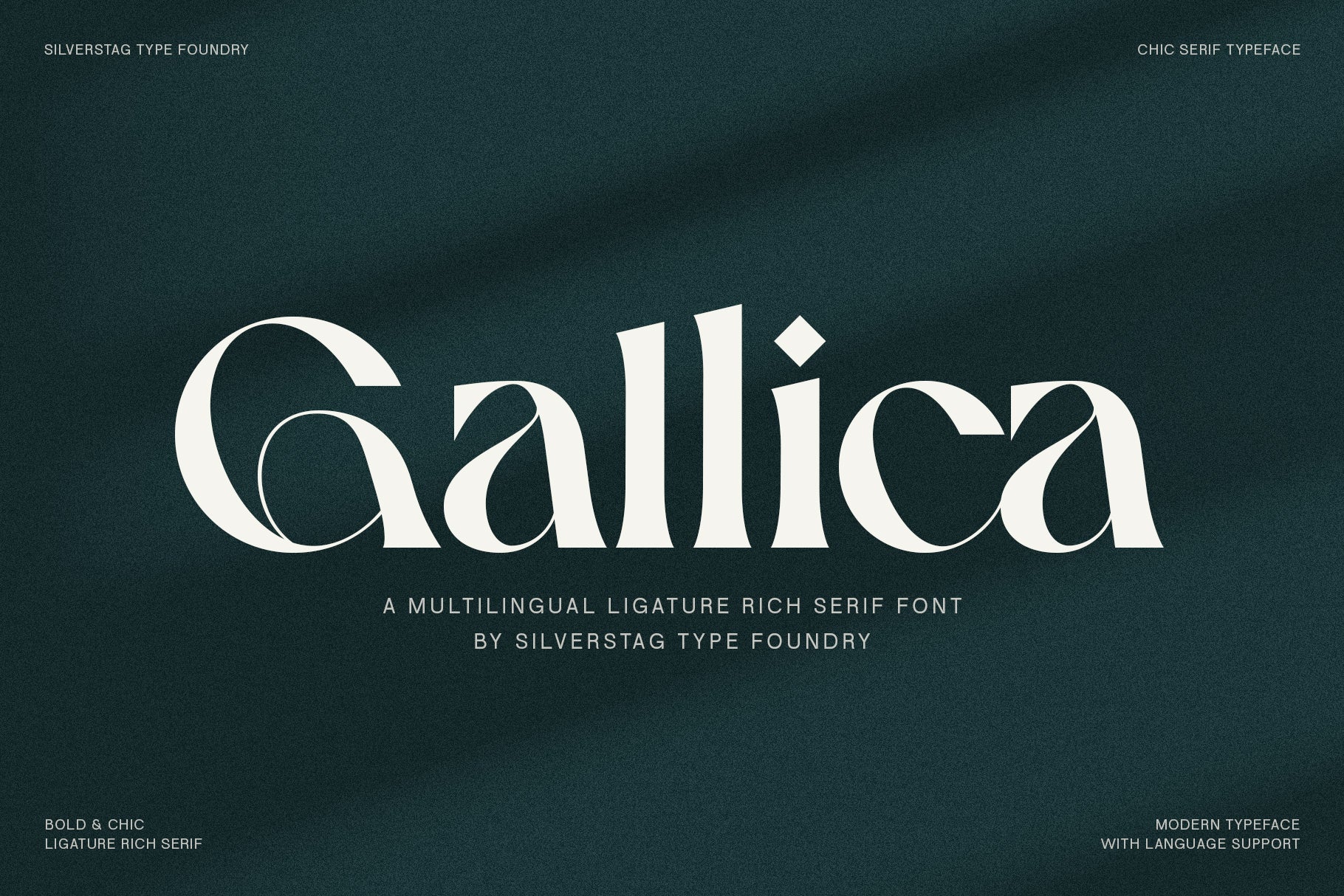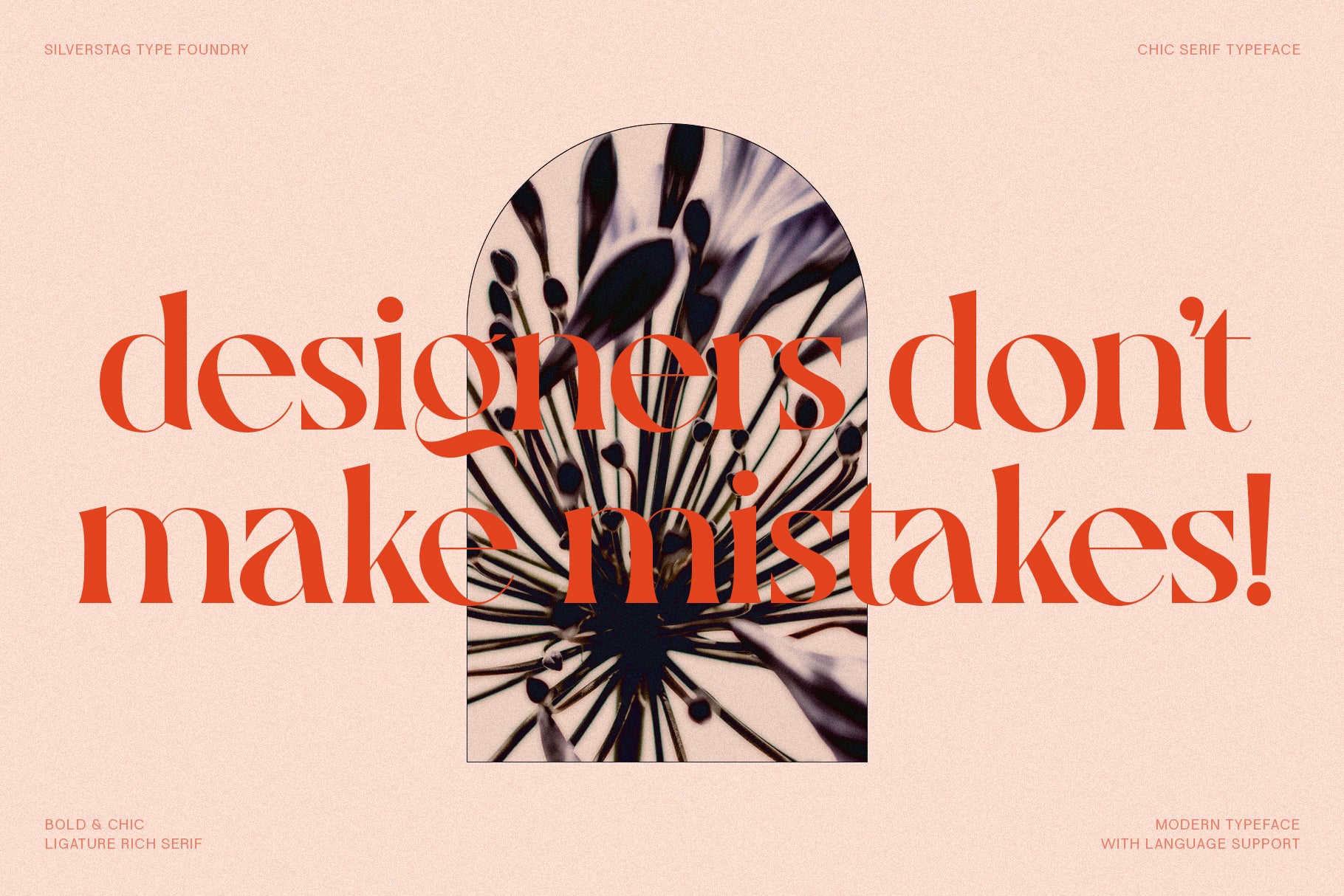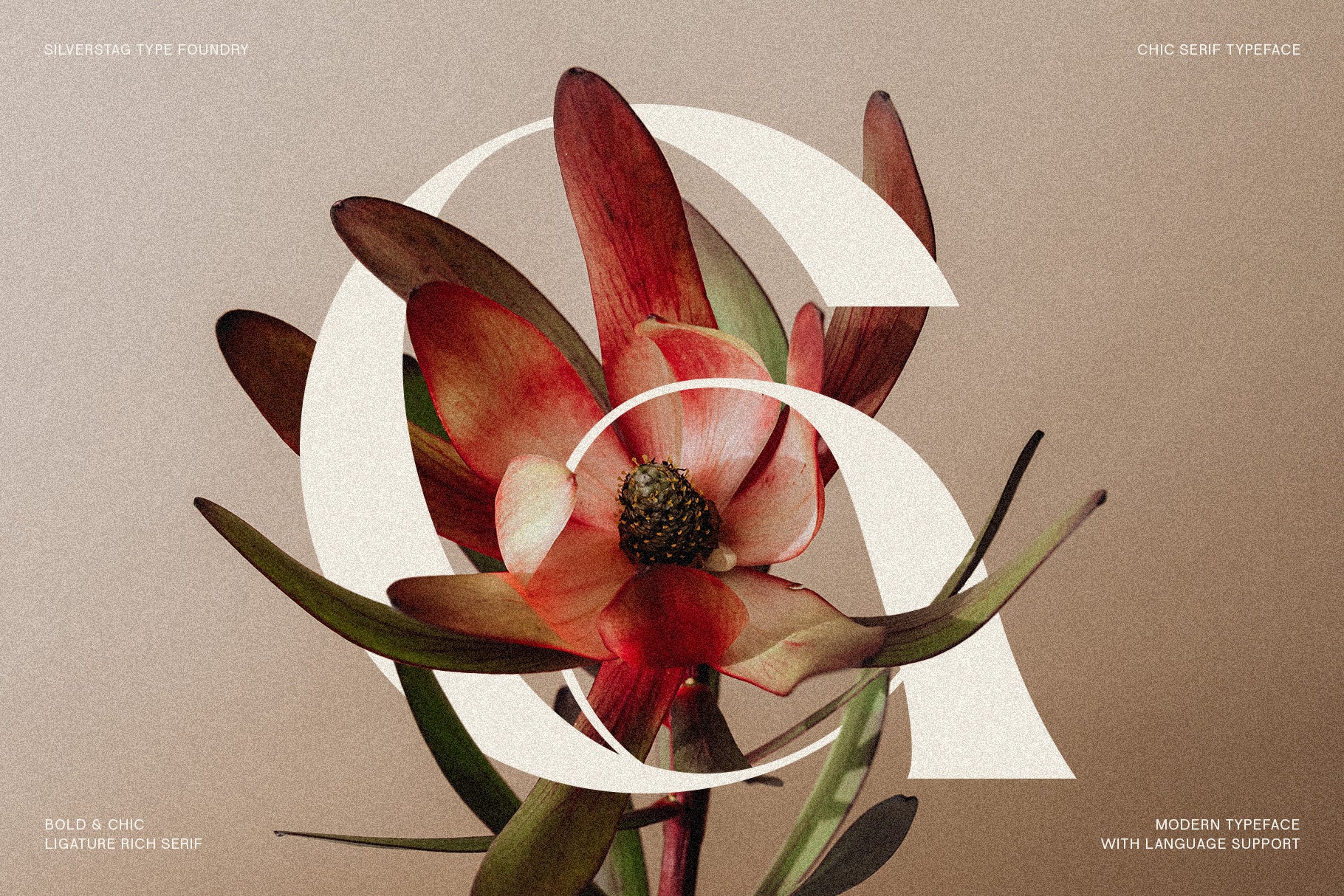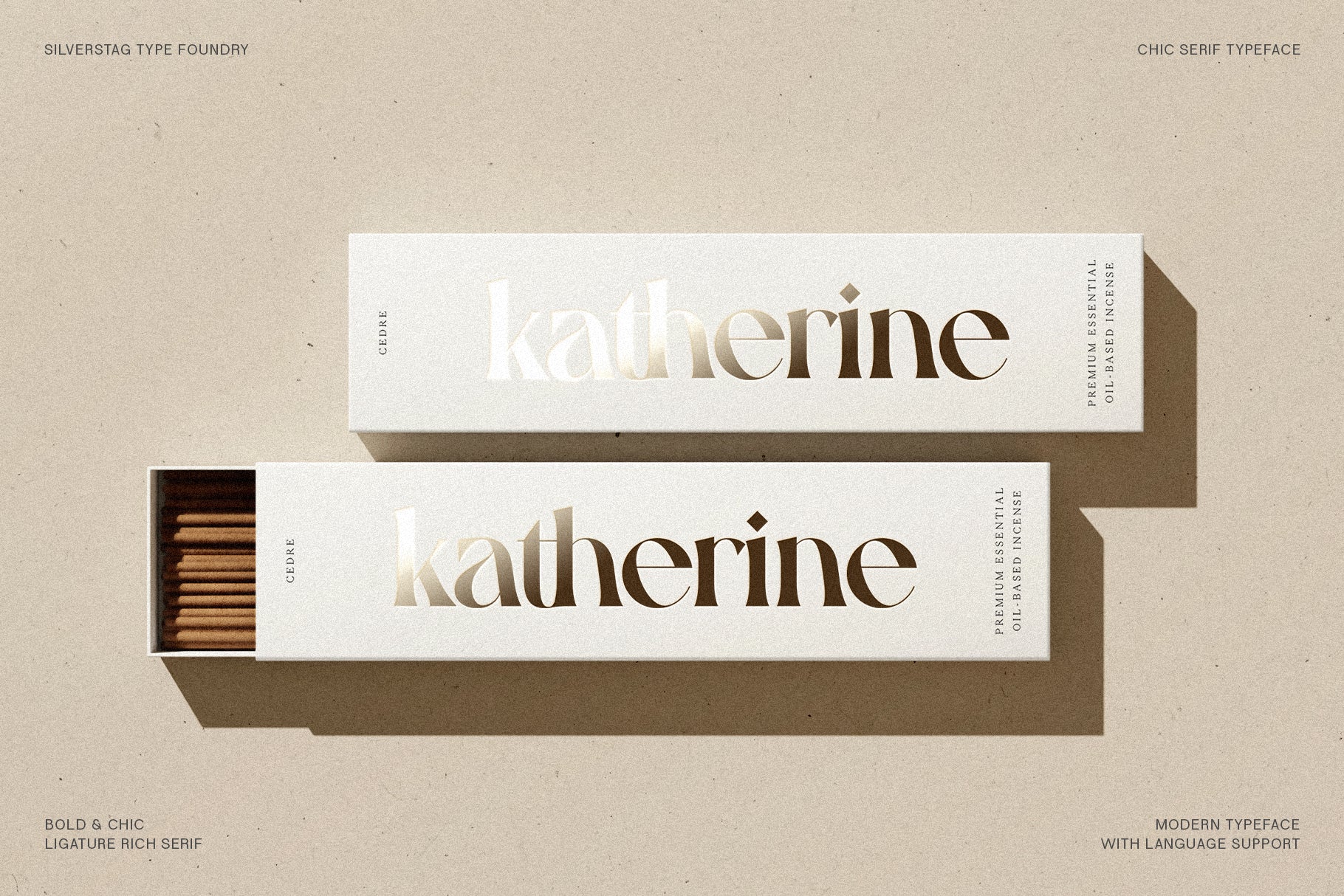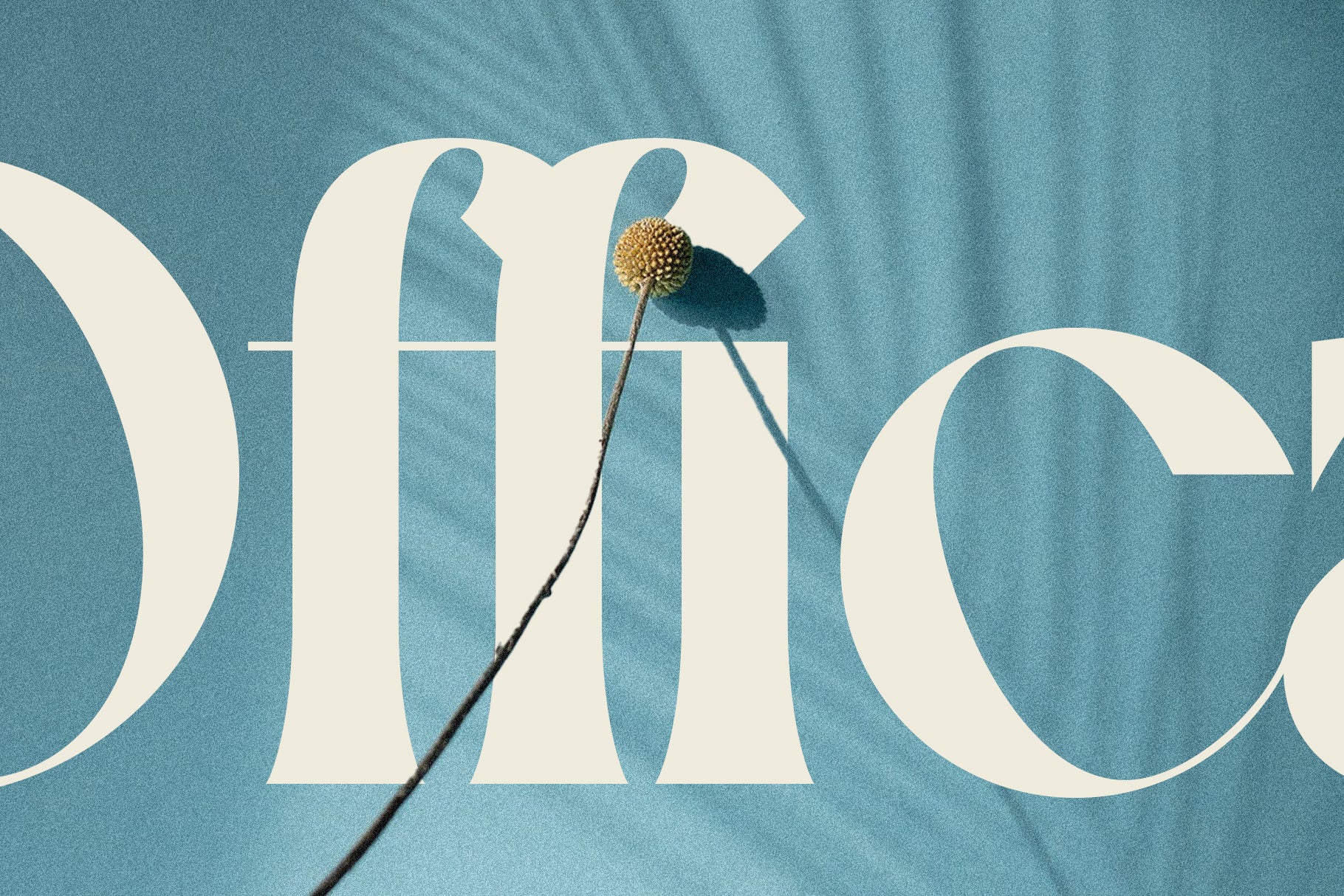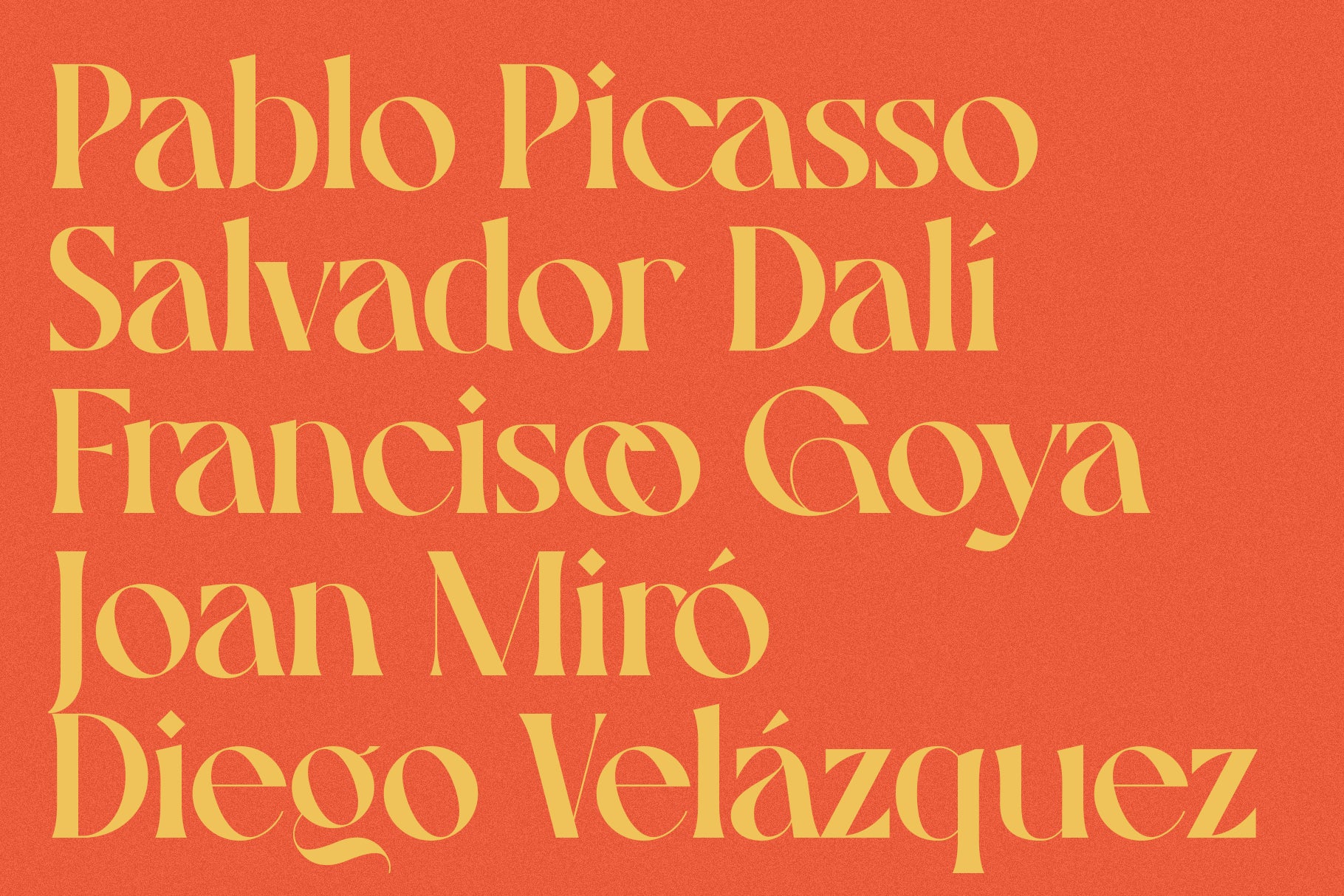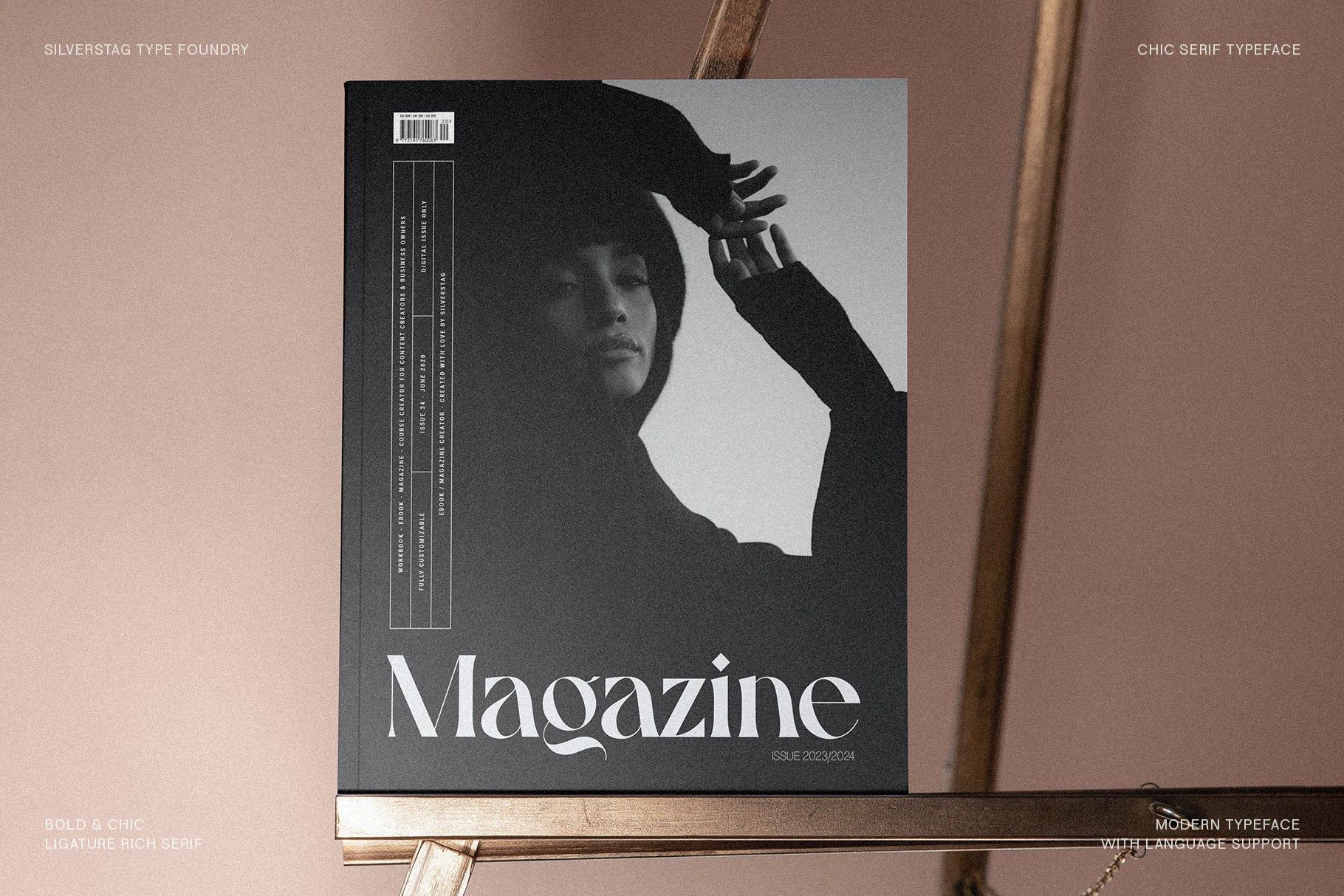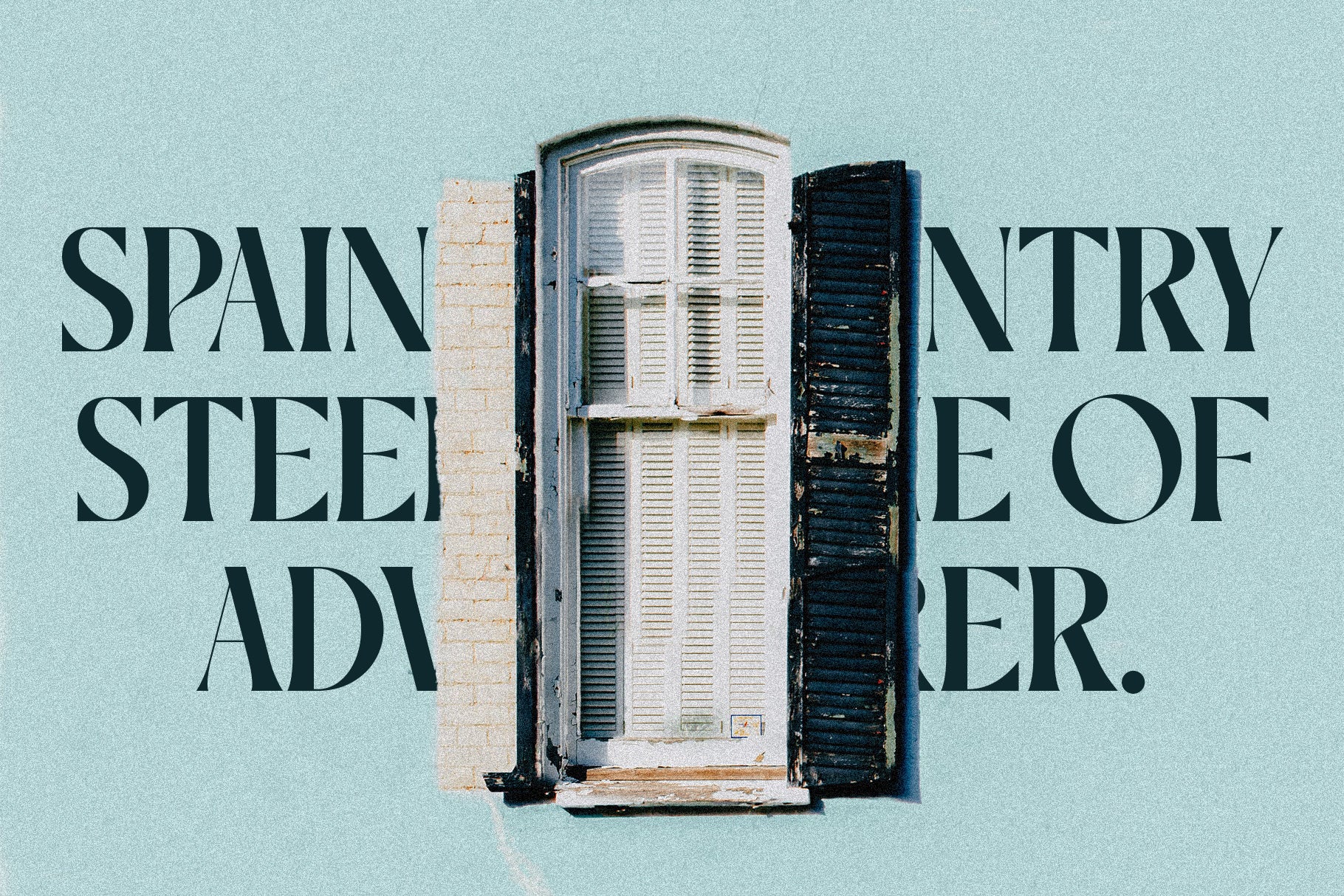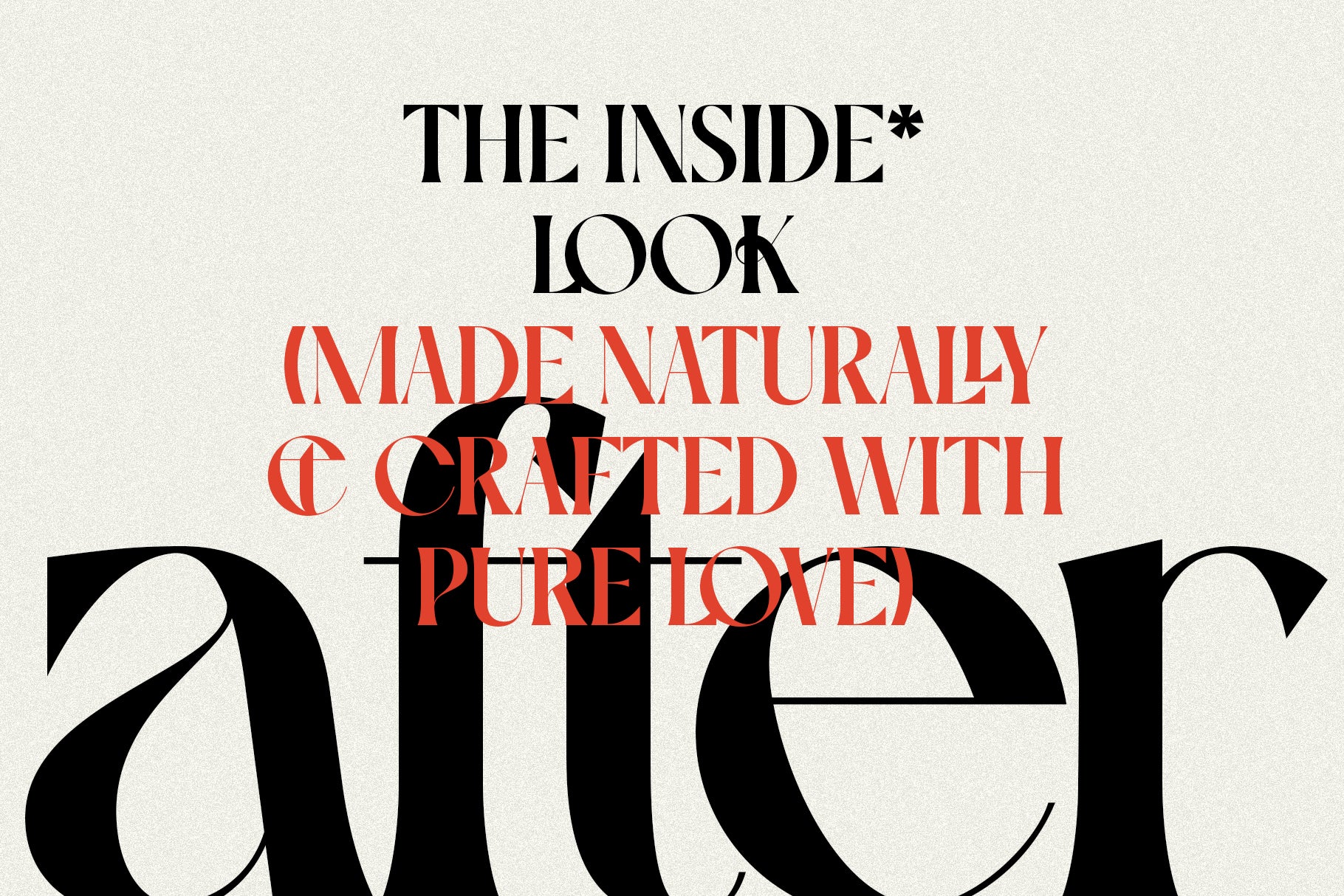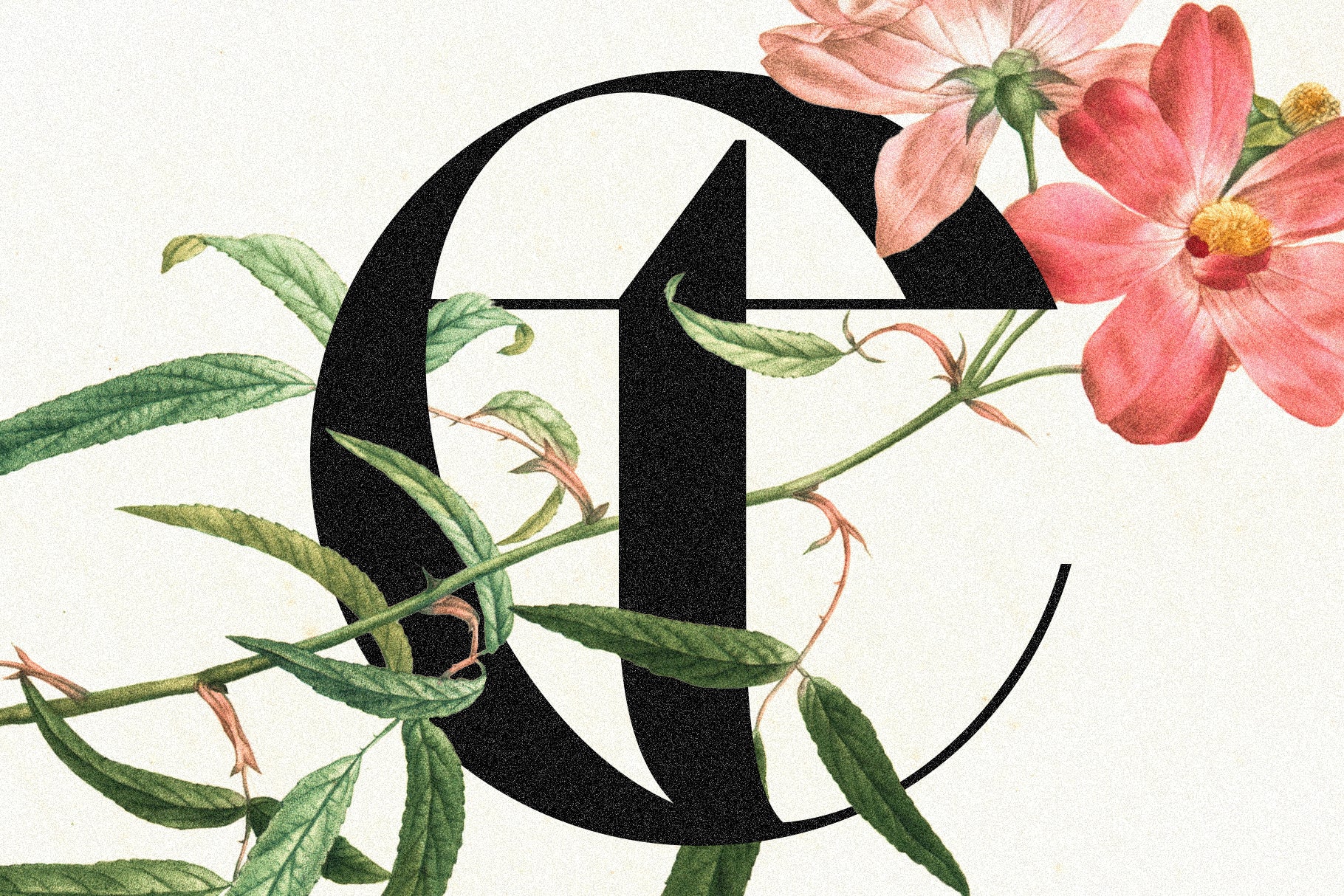
Gallica is a powerful serif font designed to make a bold impression. With its strong curves, unique letterforms, and expressive details, Gallica blends elegance and assertiveness—perfect for designers who want to create work that’s both beautiful and unforgettable.
This modern serif includes over 70 ligatures and alternates, allowing you to bring fluid movement and creative character into your typography. Whether you’re designing striking headlines, refined body text, or branding that demands attention, Gallica delivers visual impact and distinctive style.
With support for 90+ languages, Gallica is ready for global projects—ideal for high-end branding, editorial layouts, website design, and marketing campaigns that need a voice as strong as their message.
Gallica isn’t just a typeface—it’s a statement of confident creativity.